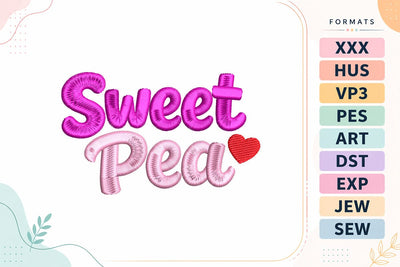
Sweet Pea | Cute Baby Quote
This Sweet Pea baby embroidery design is perfect for creating adorable baby gifts and nursery projects. Featuring soft pink lettering and a sweet heart accent, it’s ideal for baby bodysuits, bibs, blankets, baby shower gifts, nursery décor, and personalized keepsakes. Expertly digitized for smooth stitching and high-quality embroidery results.